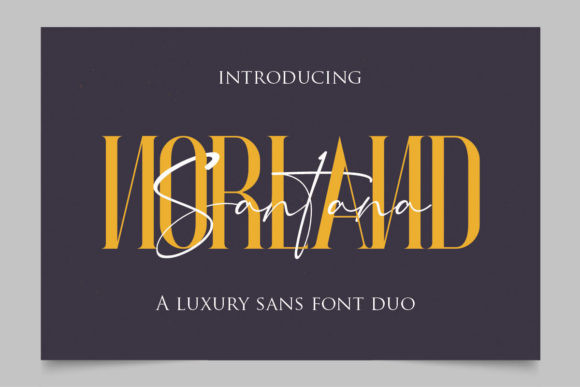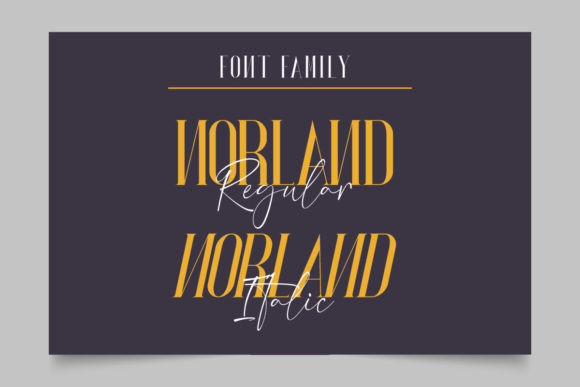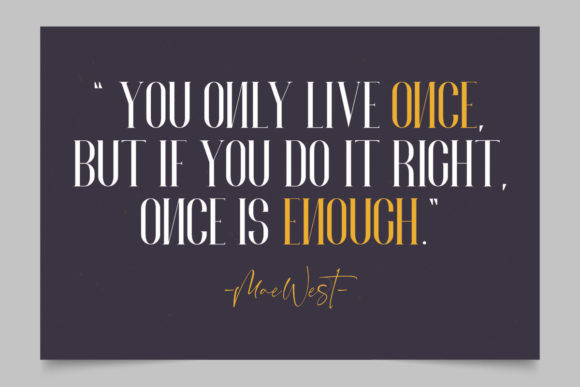
Norland Santana Font
Norland Santana is a spectacular duo font (serif and script). Incredibly versatile, this font fits a wide pool of designs, elevating them to the highest levels. Add this font to your favorite creative ideas and notice how it makes them come alive!